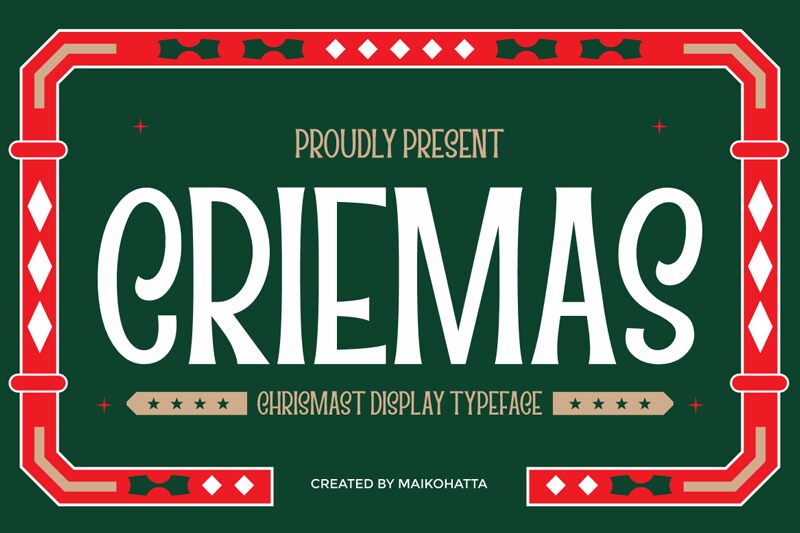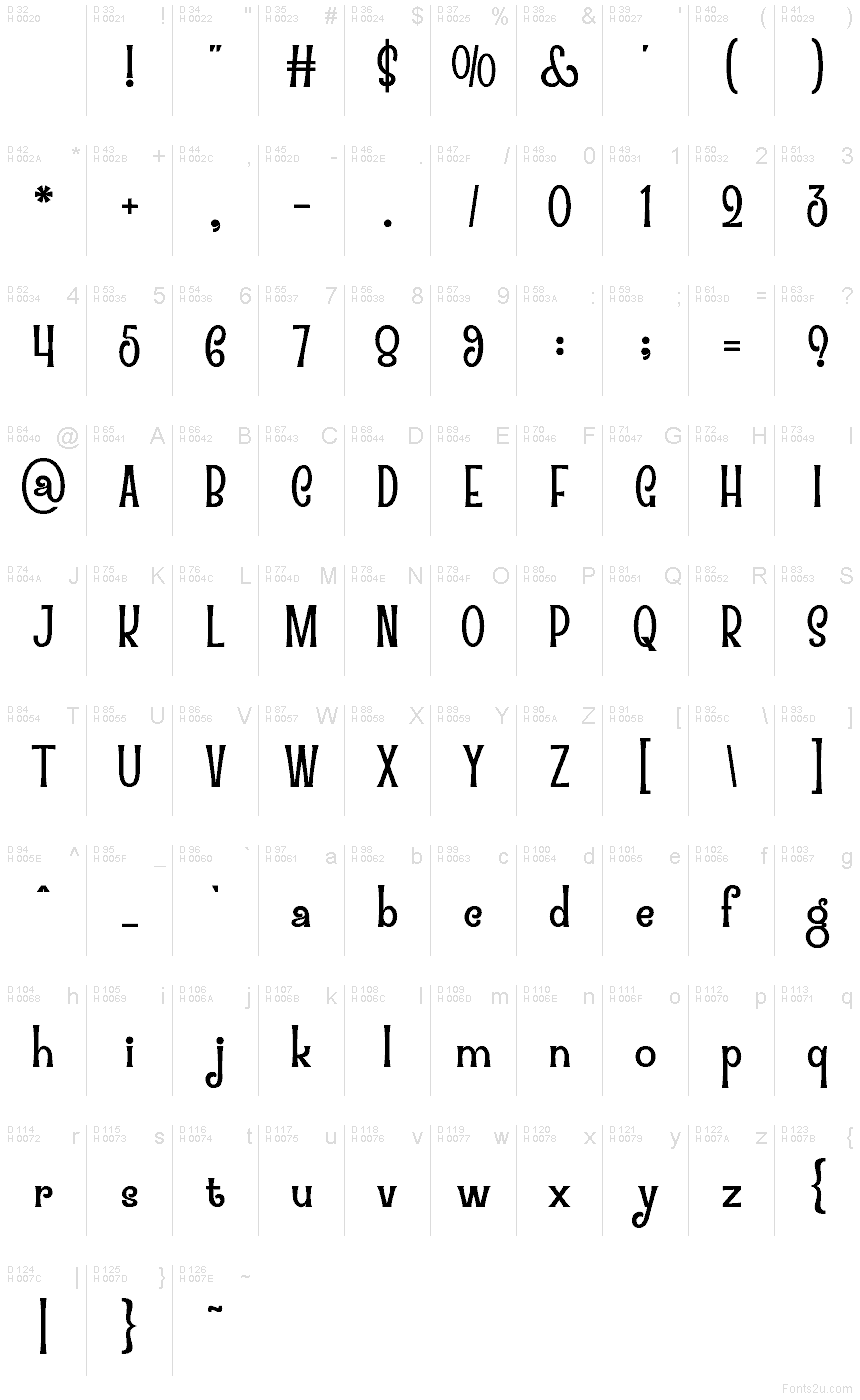
CRIEMAS
Criemas font by Gilang Ternadho is a free holiday retro typeface that turns any layout into a cozy Christmas scene. Its tall, slightly wavy letters feel like they’ve been stretched like ribbon, with soft curves and rounded edges that glow with vintage card-shop charm. The shapes are bold yet friendly, giving you that nostalgic, storybook feeling without looking childish or clichéd.
Using Criemas, this free font really shines on Christmas cards, seasonal logos, gift tags, festive posters, packaging, social media graphics, and Advent event flyers. The narrow proportions help long titles fit snugly, while the rhythmic curves keep everything lively and warm. Pair Criemas with a simple sans serif for body copy and keep it large enough to show off those playful silhouettes.